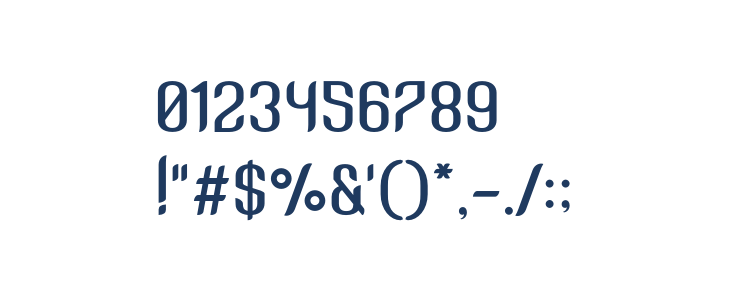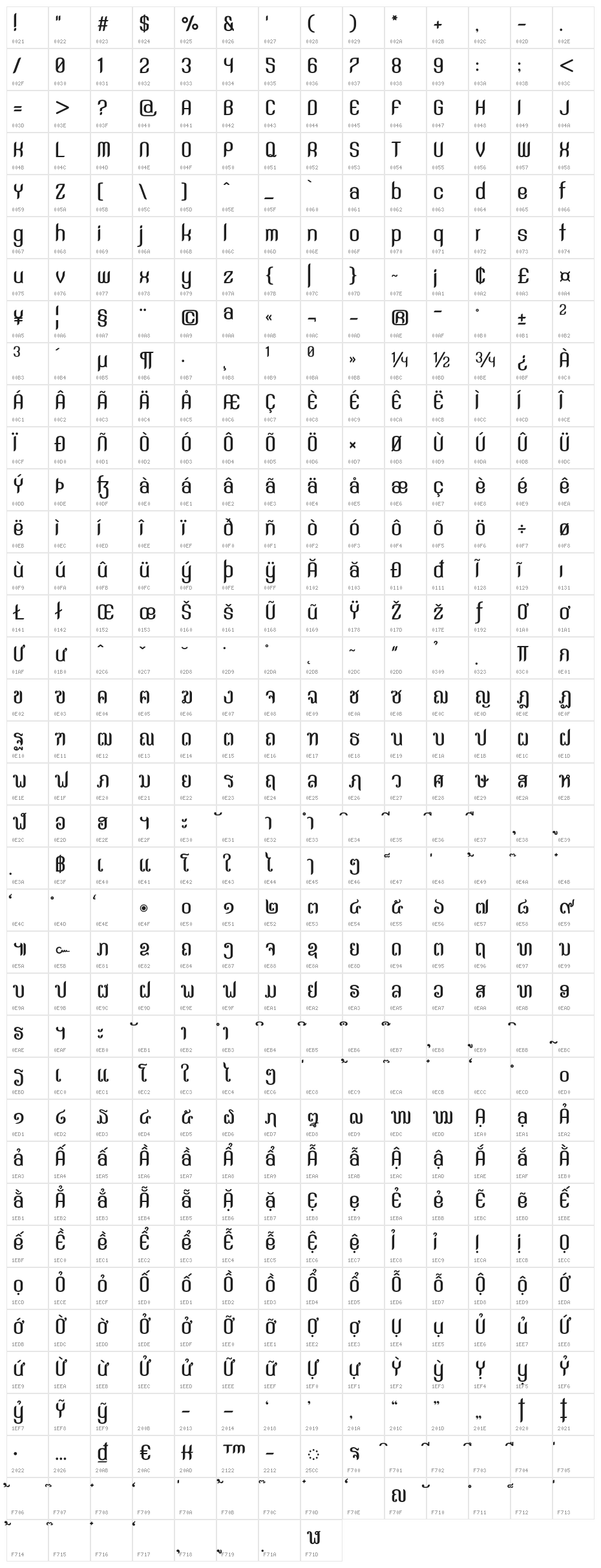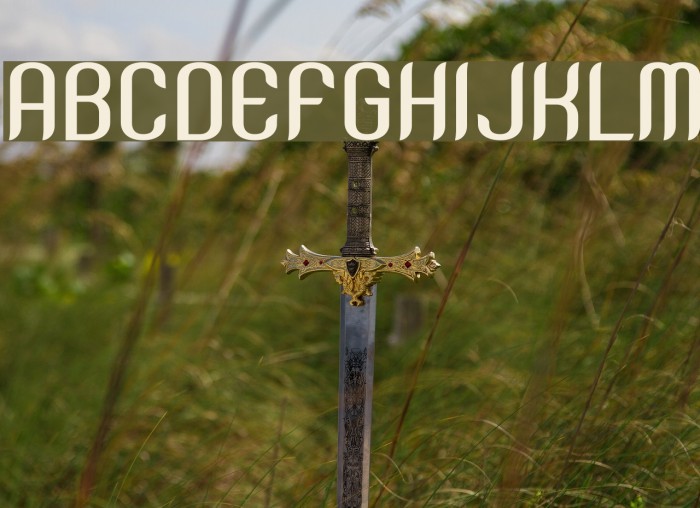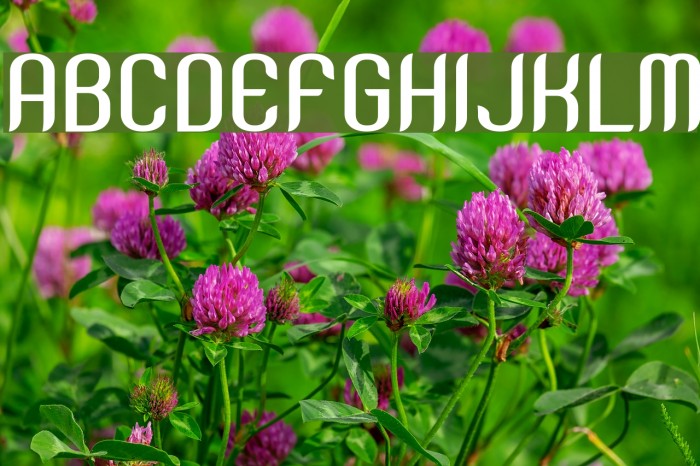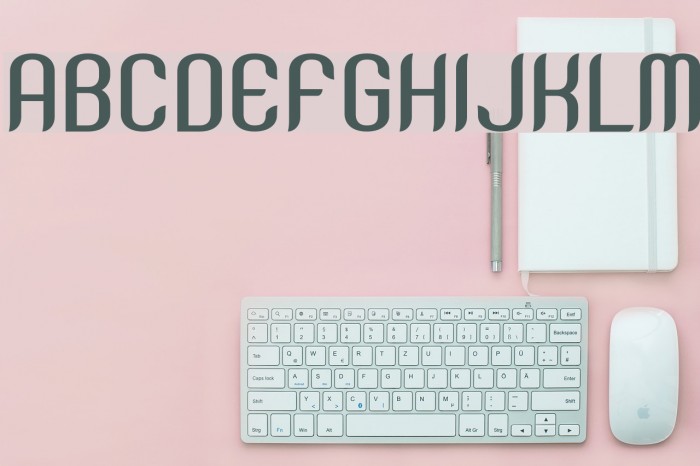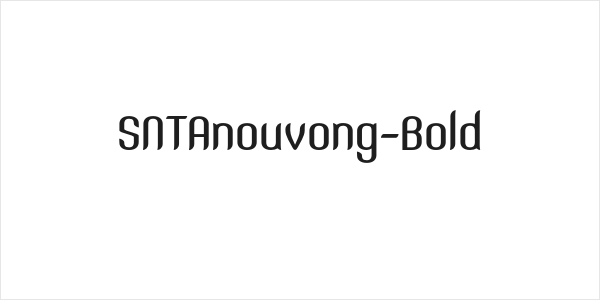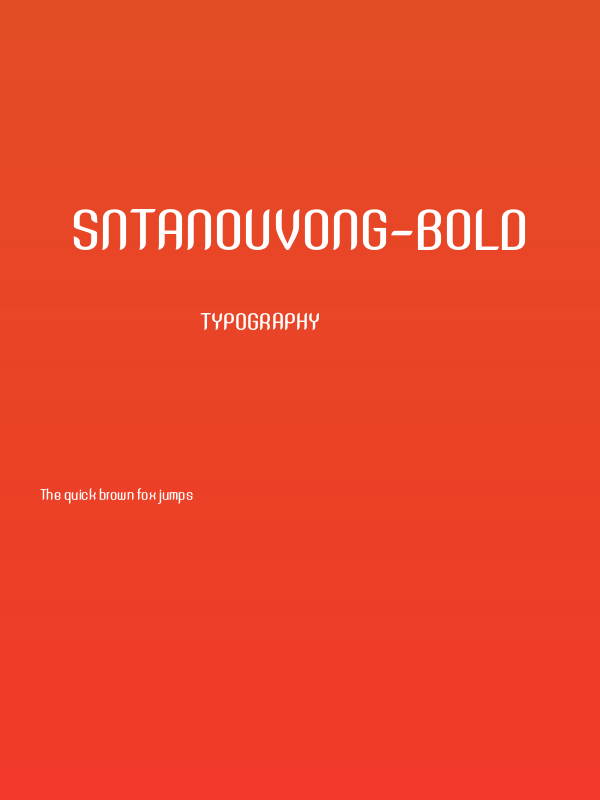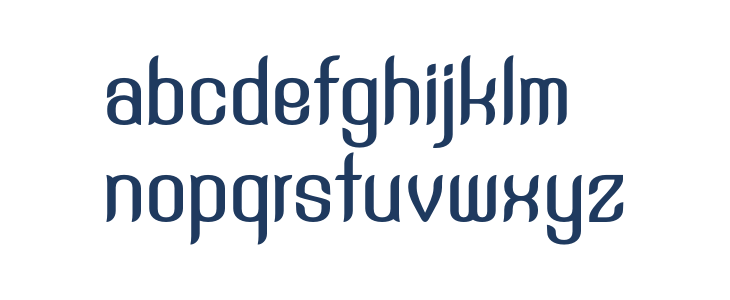
SNTAnouvong-Bold Font
SNTAnouvong-Bold Description
This font features a bold and modern design with a unique blend of rounded and straight edges. The uppercase letters are tall and slightly condensed, giving a sleek and streamlined appearance. The lowercase letters maintain a consistent height, creating a harmonious flow. Numbers are clear and legible, with a uniform thickness that matches the letters. Special characters are distinct and well-integrated, ensuring versatility in various applications. The overall style is contemporary, making it suitable for modern branding and design projects.
Use CaseHeadlines, Logos, Branding
Proposed ProjectsIdeal for branding, logos, headlines, and modern design projects that require a bold and distinctive typeface.